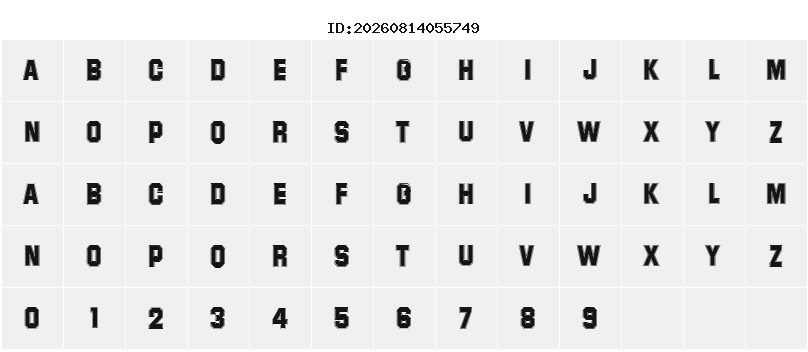
• Font Name: Superstar
• Full Font Name: Superstar.. Plain
About Superstar.ttf
Superstar.ttf is a modern, elegant sans-serif font designed for ultimate readability and visual harmony. Perfect for branding, headlines, web design, and print materials.